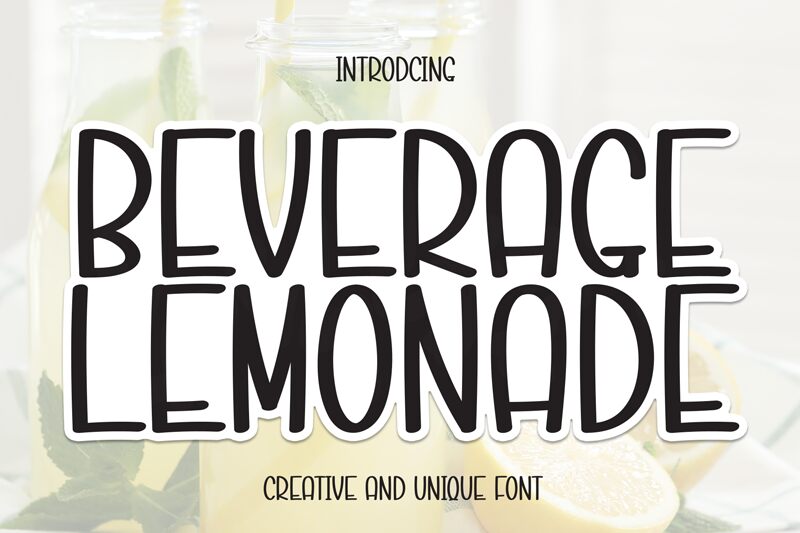
Beverage Lemonade
Beverage Lemonade font by Scratchones is a free handwritten font with a condensed style and vintage-inspired look. Its casual tone is achieved through its slight irregularities that offer a friendly aesthetic and an approachable vibe captured with its unique characters.
Use in wall stickers, T-shorts, book covers, invitations for special events, greeting cards, postcards, ads for special wire fixtures or furniture pieces, branding designs, packaging designs printed or digital projects that can benefit from this playful typography.